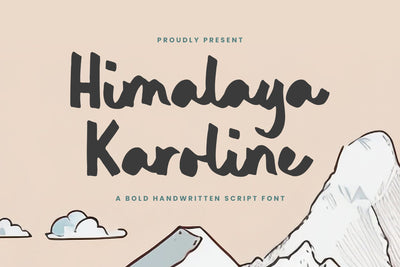
Himalaya Karoline - Bold Handwritten Script Font
Himalaya Karoline is a Bold Handwritten Script Font
This font is a bold handwritten script font that exudes elegance and strength. With its flowing, slightly rounded strokes and dynamic letterforms, this font combines the warmth of personal handwriting with a bold, confident presence. Ideal for headlines, branding, and creative projects, Himalaya Karoline offers a touch of sophistication while maintaining a casual, approachable vibe. Its thick lines and smooth curves make it both striking and legible, ensuring it stands out in any design.
Himalaya Karoline Font also supports multilingualism